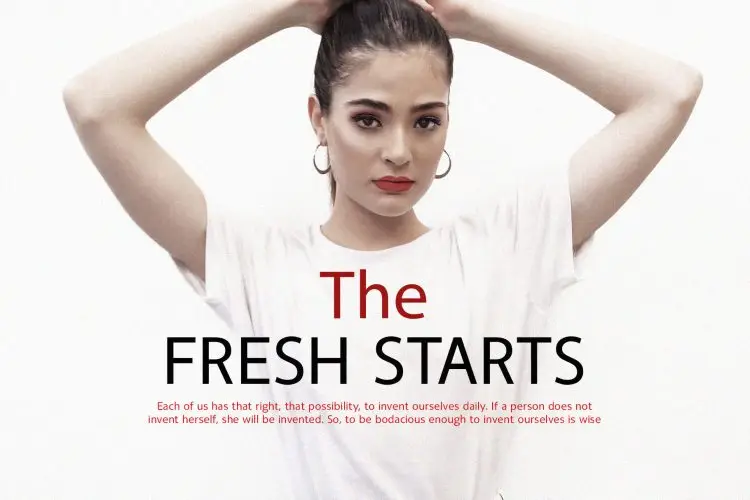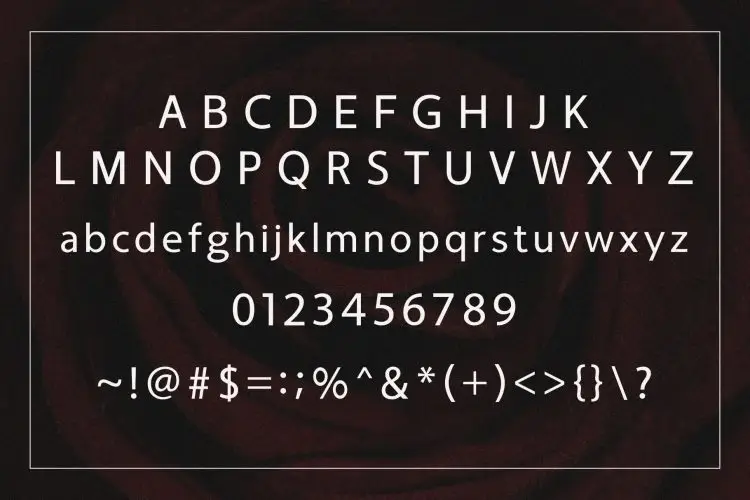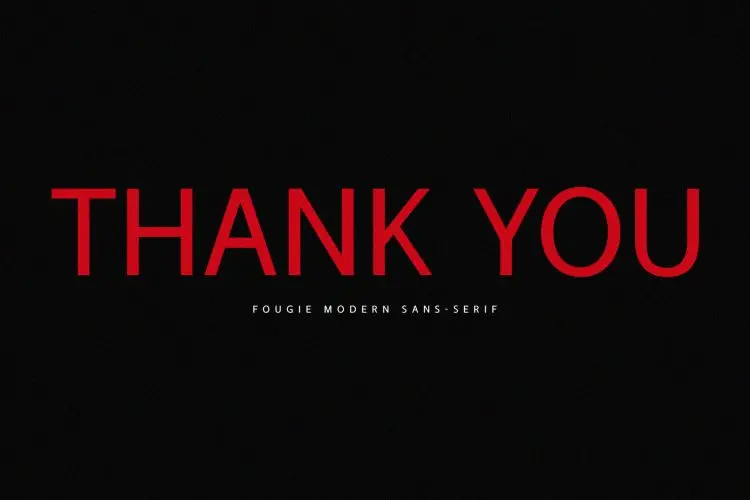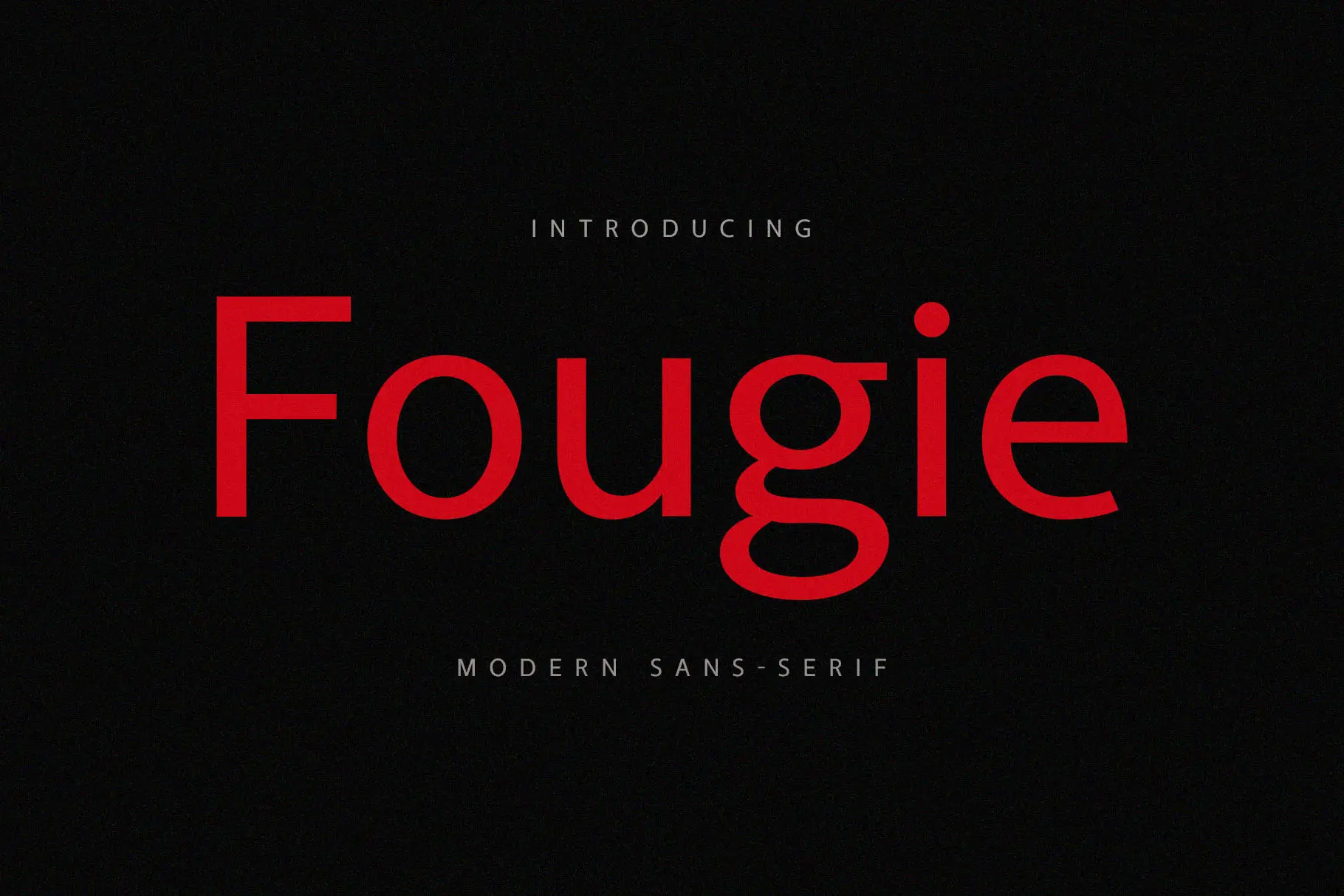
Fougie Modern Sans Serif Font
Fougie
A modern sans-serif font designed to enhance various creative projects such as websites, logos, magazines, and social media posts. With its sophisticated and contemporary design, Fougie is the ideal choice for those seeking a touch of elegance in their designs. Elevate your creative endeavors with the refined and timeless appeal of Fougie, ensuring a touch of class in every project.
• Modern Designs
• Beauty and Fashion
• Web Design Projects
• Advertising Campaigns
• Social Media Design
• Magazines
• Business Cards
• Ready for Creative Expression
• Immaculately Crafted Letters
Fougie is a modern sans serif font that combines sophistication with contemporary design. Ideal for web design, beauty branding, and social media, it adds elegance to any project.